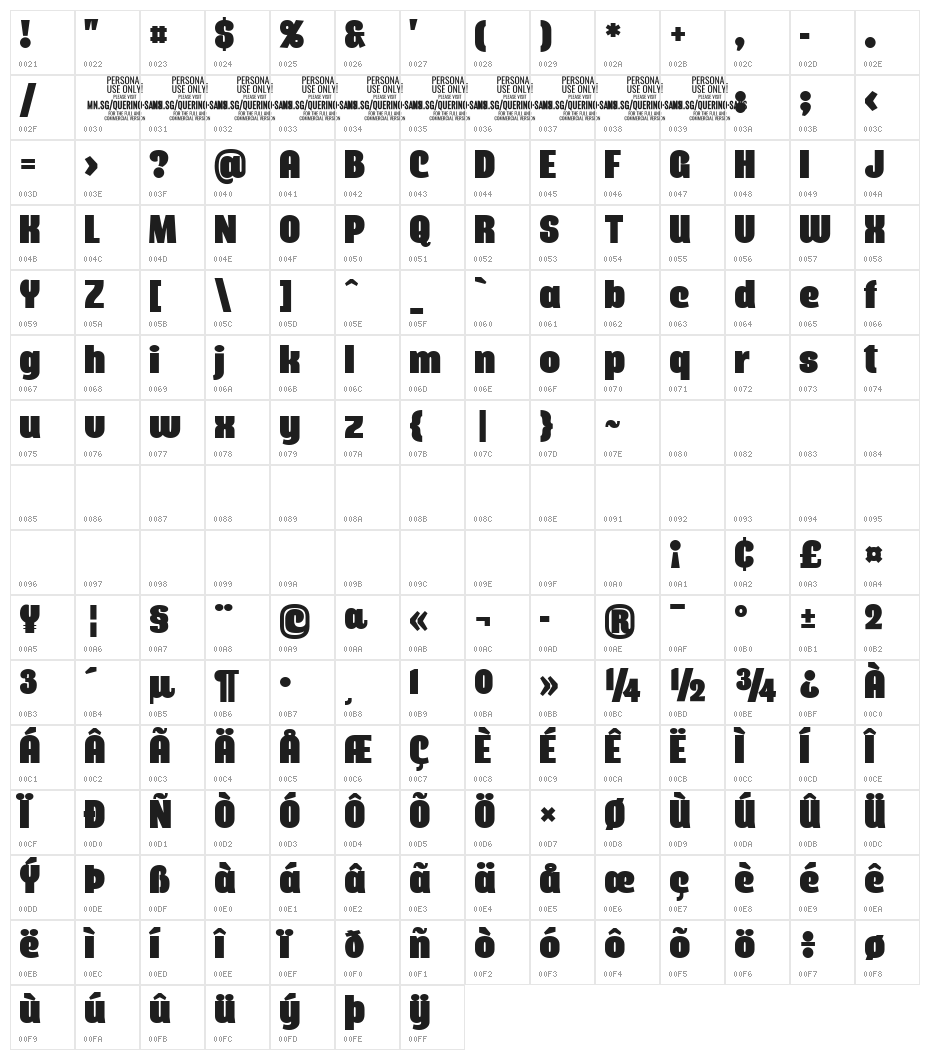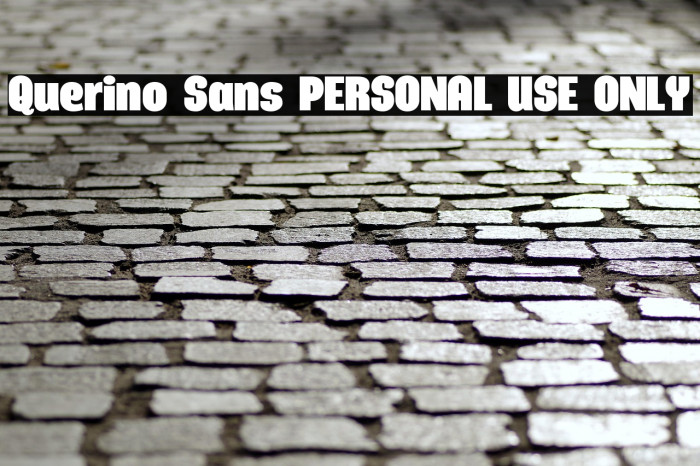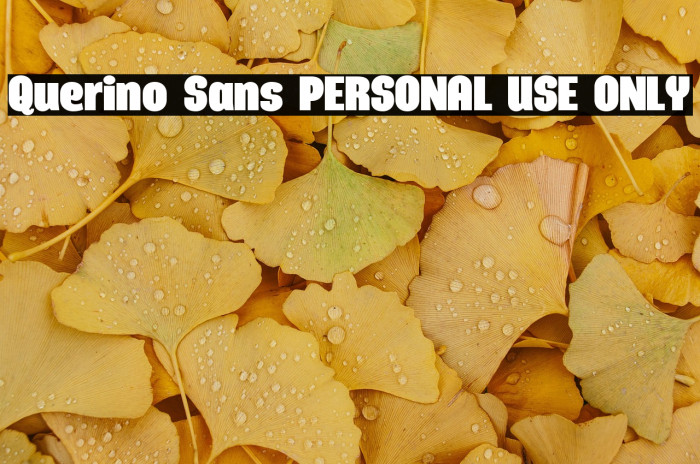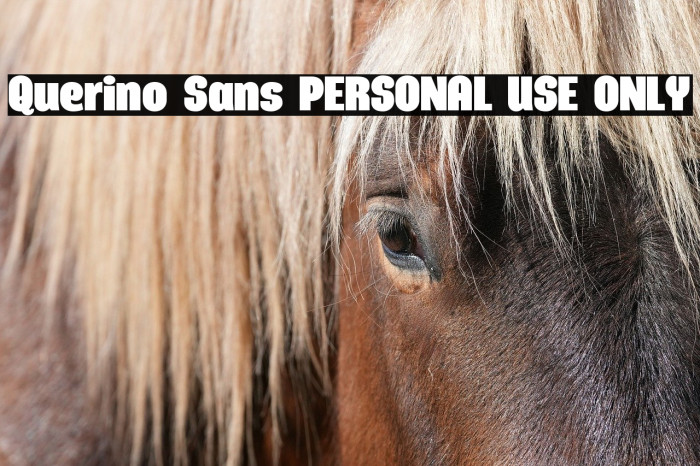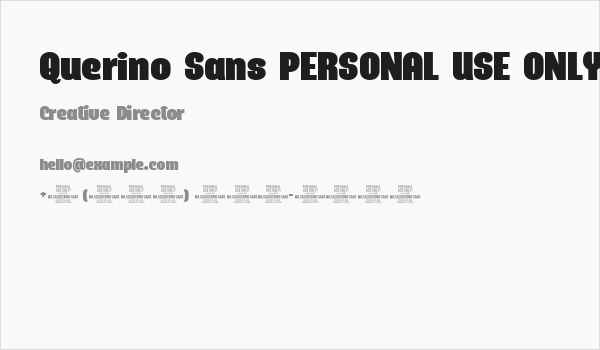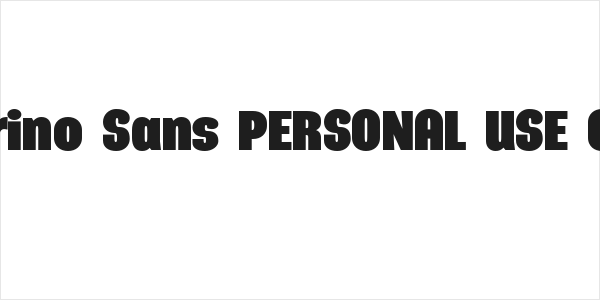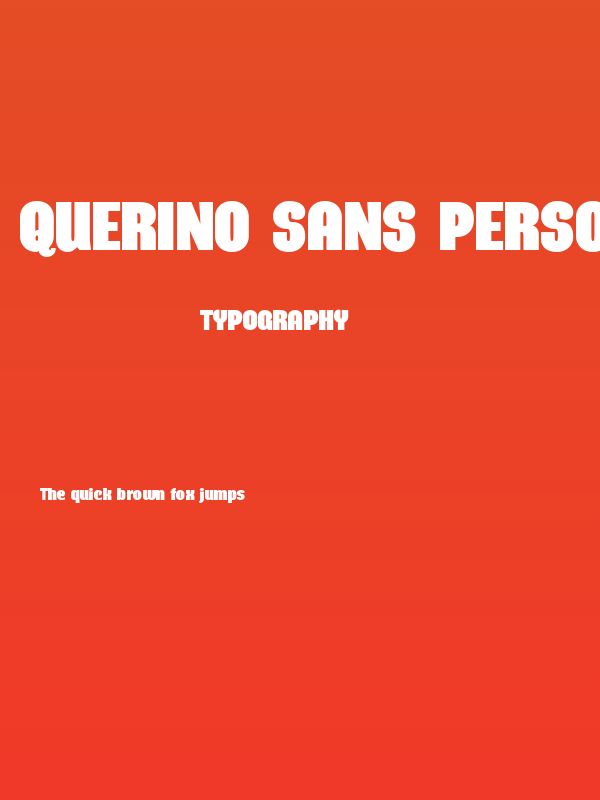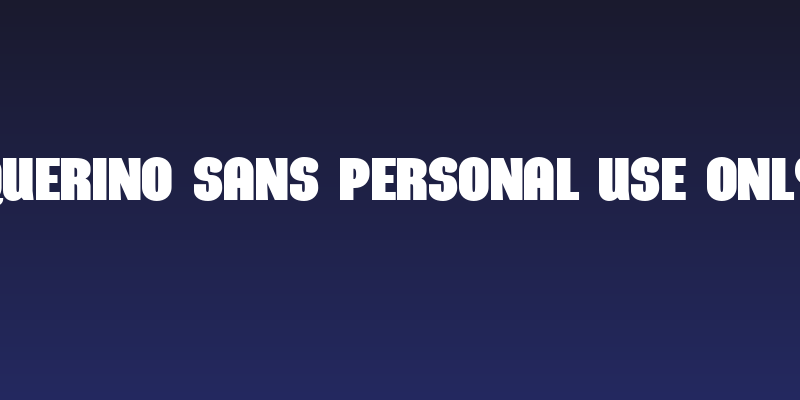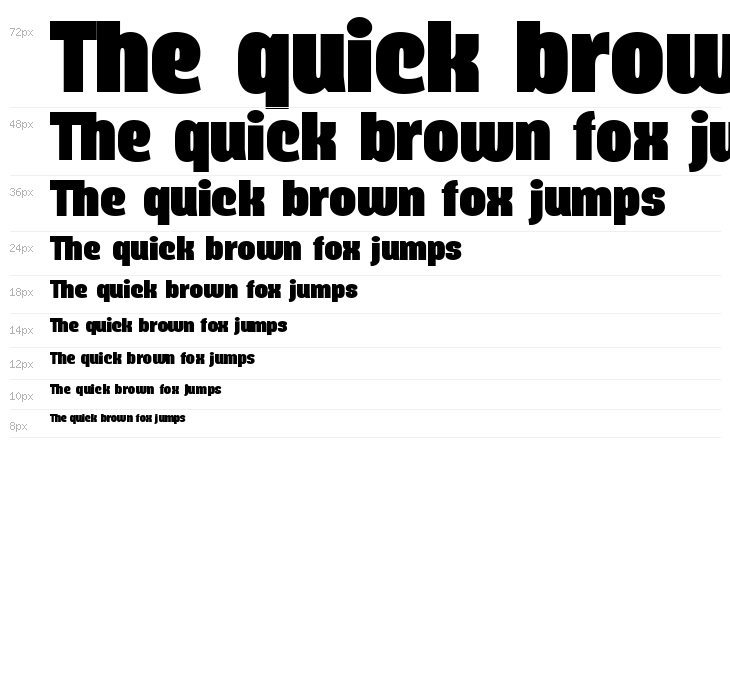
Querino Sans PERSONAL USE ONLY Font
Querino Sans PERSONAL USE ONLY Description
This font features bold, thick strokes with a strong presence, making it ideal for attention-grabbing designs. The characters are uniformly wide, with a slightly condensed appearance that enhances readability while maintaining a compact form. The uppercase and lowercase letters share a consistent style, with rounded edges that soften the overall look. The numerals and special characters are designed to match the boldness of the alphabet, ensuring a cohesive appearance across all text elements. This font's robust design makes it suitable for impactful visual statements.
| Proposed Projects | Ideal for posters, headlines, branding, and any design requiring a strong visual impact. |